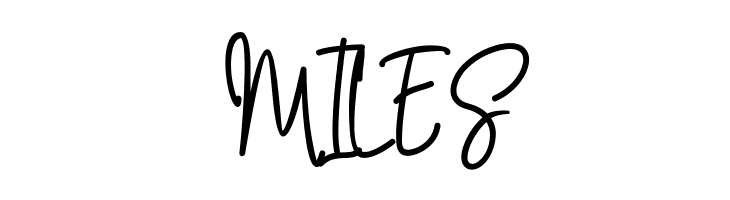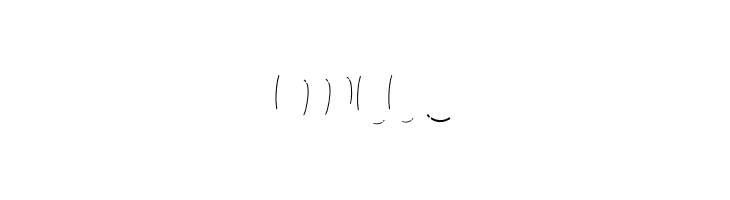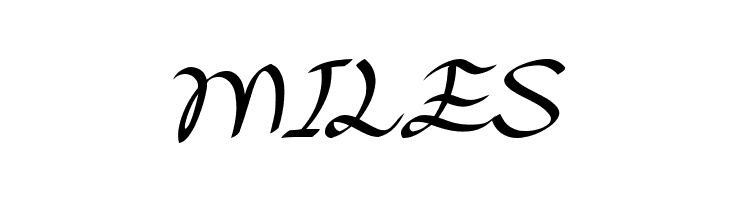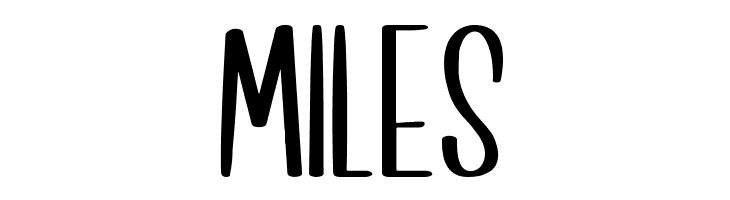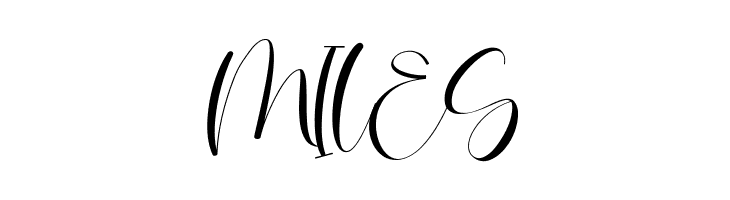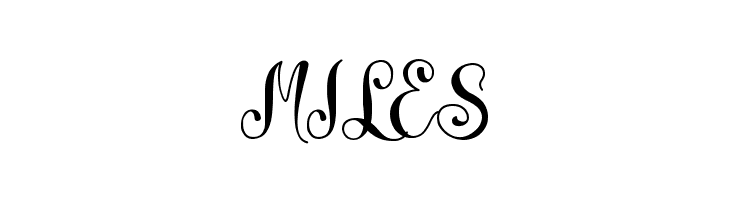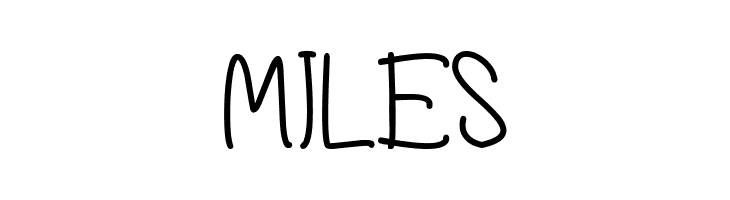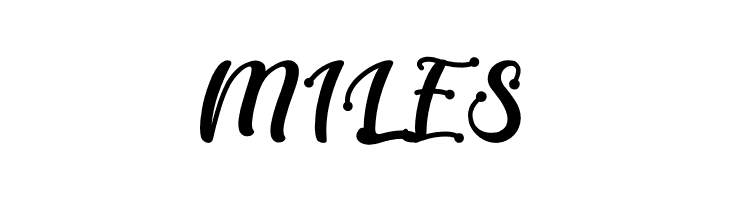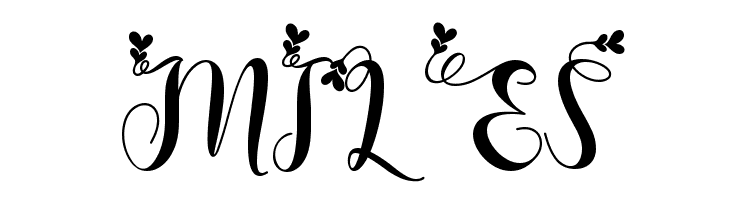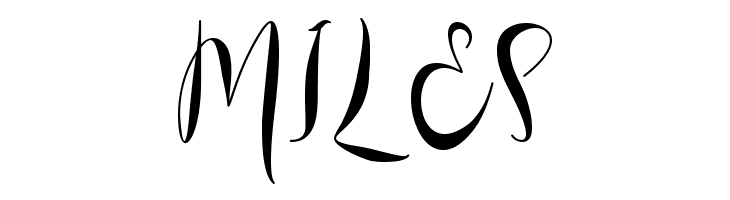
( Fonts by Yoga Letter - Isroni Yoga Prasetya - Personal-use only. For commercial use please contact owner. ) An elegant, flowing script font with sweeping curves and delicate strokes. Download 32 Downloads@WebFont
( Fonts by Kong Font - fontkong.com - Personal-use only. For commercial use please contact owner. ) An elegant, flowing script font with ornate uppercase and fluid lowercase letters. Download 37 Downloads@WebFont
( Fonts by Barry Bujol - theoriginal19.blogspot.com ) An ornate and decorative font with intricate swirls and embellishments. Download 596 Downloads@WebFont
( Fonts by Barry Bujol - theoriginal19.blogspot.com ) An ornate, decorative font with intricate hollow designs and vintage flair. Download 264 Downloads@WebFont
( Fonts by LittleWind Studio - Arvan Fatwa - Personal-use only. For commercial use please contact owner. ) A playful handwritten font with smooth, flowing lines and a casual style. Download 71 Downloads@WebFont
( Fonts by a Max Infeld - XEROGRAPHER FONTS - xerographer.blogspot.com . Personal-use only. For commercial use please contact owner. ) A dynamic, expressive handwritten font with sharp, elongated strokes. Download 170 Downloads@WebFont
( Xerographer Fonts - Max Infeld - xerographer.blogspot.com ) An elegant script font with intricate loops and swirls, perfect for artistic projects. Download 98 Downloads@WebFont
( Fonts by Poemhaiku ) A hand-drawn, expressive font with a sketch-like, graffiti-inspired style. Download 167 Downloads@WebFont
( Darrell Flood ) A playful, hand-drawn font with bold strokes and a whimsical style. Download 61 Downloads@WebFont
( Fonts by Alde Saputro - aldedesign - https://www.creativefabrica.com/product/the-crafty-holiday-font-bundle/ref/125925/ - Personal-use only. For commercial use please contact owner. ) A dynamic handwritten font with fluid strokes and playful elegance. Download 88 Downloads@WebFont
( Fonts by www.woodcutter.es - woodcutter Manero - Personal-use only. For commercial use please contact owner. ) A bold, geometric font with strong visual impact and modern appeal. Download 579 Downloads@WebFont
( Fonts by NanaNissa ) A bold, playful font with rounded edges and a hand-drawn feel. Download 173 Downloads@WebFont
( Fonts by Storytype Studio ) A playful, bold font with rounded, bubbly characters ideal for fun projects. Download 76 Downloads@WebFont
( Fonts by Andrean Prabowo - Personal-use only. For commercial use please contact owner. ) An elegant, flowing script font with varied stroke thickness and interconnected letters. Download 36 Downloads@WebFont
( Fonts by Marchtwentype - E. Nurcahyo - Personal-use only. For commercial use please contact owner. ) A bold, flowing script font with elegant, cursive letterforms. Download 70 Downloads@WebFont
( Fonts by arttotell - Personal-use only. For commercial use please contact owner. ) A sophisticated script font with flowing, decorative curves. Download 30 Downloads@WebFont
( Fonts by arttotell - Personal-use only. For commercial use please contact owner. ) An elegant, flowing script font with intricate loops and a dynamic italic style. Download 21 Downloads@WebFont
( Fonts by Yoga Letter - Isroni Yoga Prasetya - Personal-use only. For commercial use please contact owner. ) An elegant, flowing script font with artistic flourishes and a playful yet sophisticated style. Download 49 Downloads@WebFont
( Fonts by Letterena Studios ) An elegant and flowing script font with artistic loops and swirls. Download 141 Downloads@WebFont
( Fonts by Gilar Studio - Personal-use only. For commercial use please contact owner. ) A sophisticated script font with elegant loops and high contrast strokes. Download 31 Downloads@WebFont
( Fonts by Yoga Letter - Isroni Yoga Prasetya - Personal-use only. For commercial use please contact owner. ) An elegant and flowing script font with delicate, elongated letterforms. Download 29 Downloads@WebFont
( Fonts by Yoga Letter - Isroni Yoga Prasetya - Personal-use only. For commercial use please contact owner. ) An elegant script font with floral embellishments and flowing cursive style. Download 85 Downloads@WebFont
( Fonts by BrandSemut - A Sidiq - Personal-use only. For commercial use please contact owner. ) A playful, hand-drawn font with tall, narrow letters and a modern, whimsical style. Download 51 Downloads@WebFont
( Fonts by Letterafa Studio - Ahmad Afandi - Personal-use only. For commercial use please contact owner. ) A decorative script font with elegant swirls and playful loops. Download 60 Downloads@WebFont
( Fonts by Yoga Letter - Isroni Yoga Prasetya - Personal-use only. For commercial use please contact owner. ) An elegant and flowing script font with ornate uppercase and smooth lowercase letters. Download 37 Downloads@WebFont
( Fonts by Yoga Letter - Isroni Yoga Prasetya - Personal-use only. For commercial use please contact owner. ) A playful and flowing script font with a handwritten style. Download 49 Downloads@WebFont
( Fonts by Jujun Junaedi ) A whimsical and decorative font with thin, elegant strokes and a calligraphic flair. Download 83 Downloads@WebFont
( Fonts by Gilar Studio - Personal-use only. For commercial use please contact owner. ) An elegant, cursive font with intricate loops and swashes, perfect for artistic projects. Download 167 Downloads@WebFont
( Fonts by Xerographer Fonts ) A playful, cloud-like font with bold outlines and whimsical shapes. Download 395 Downloads@WebFont